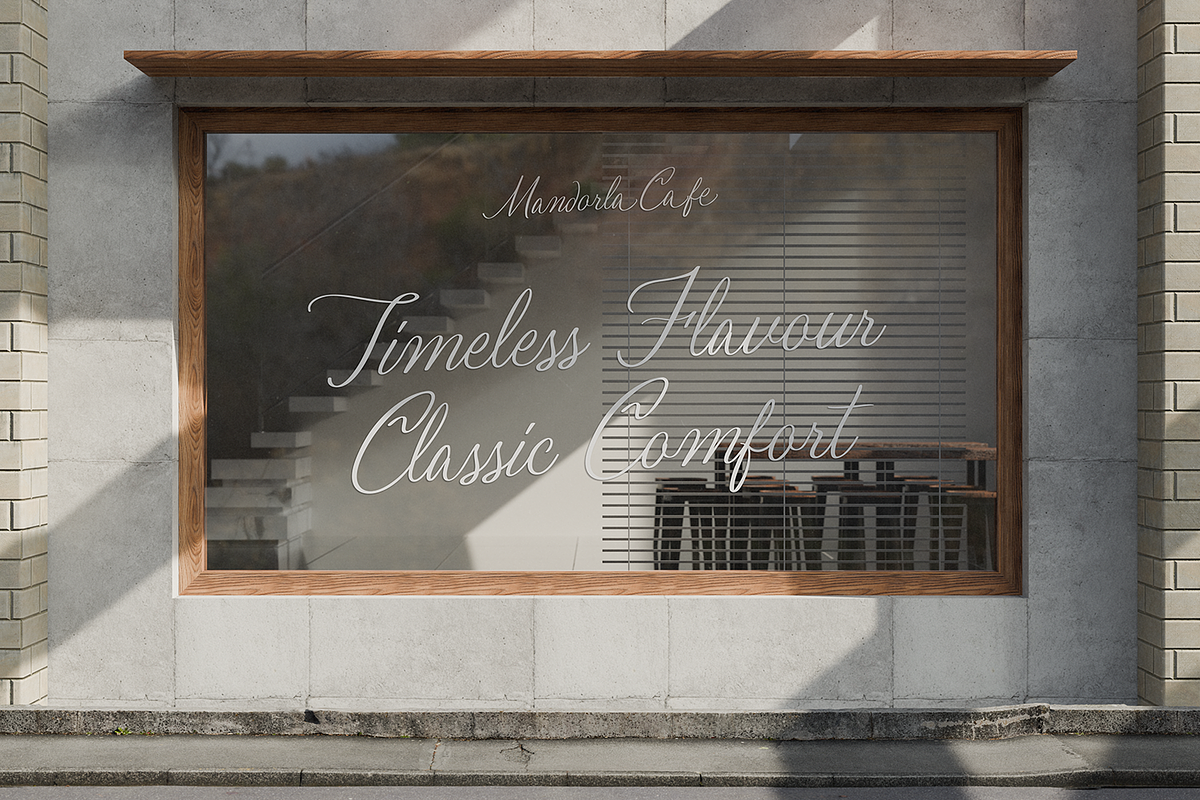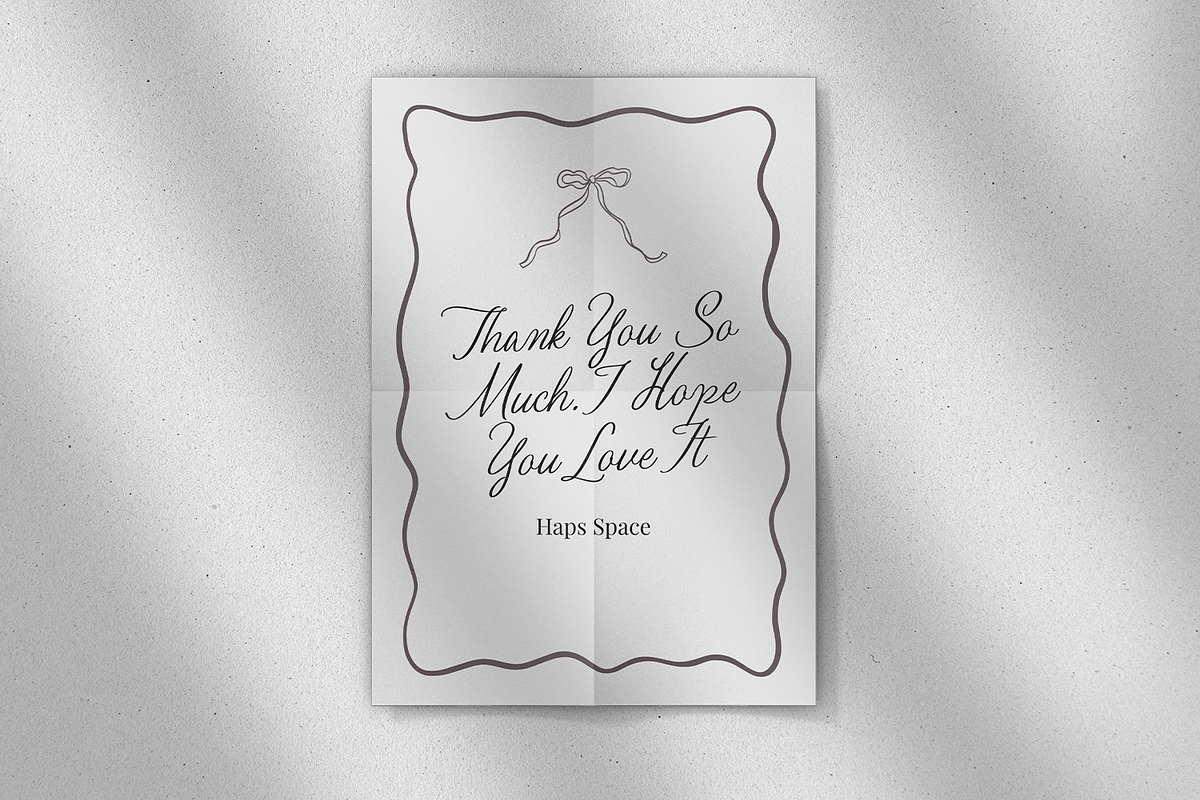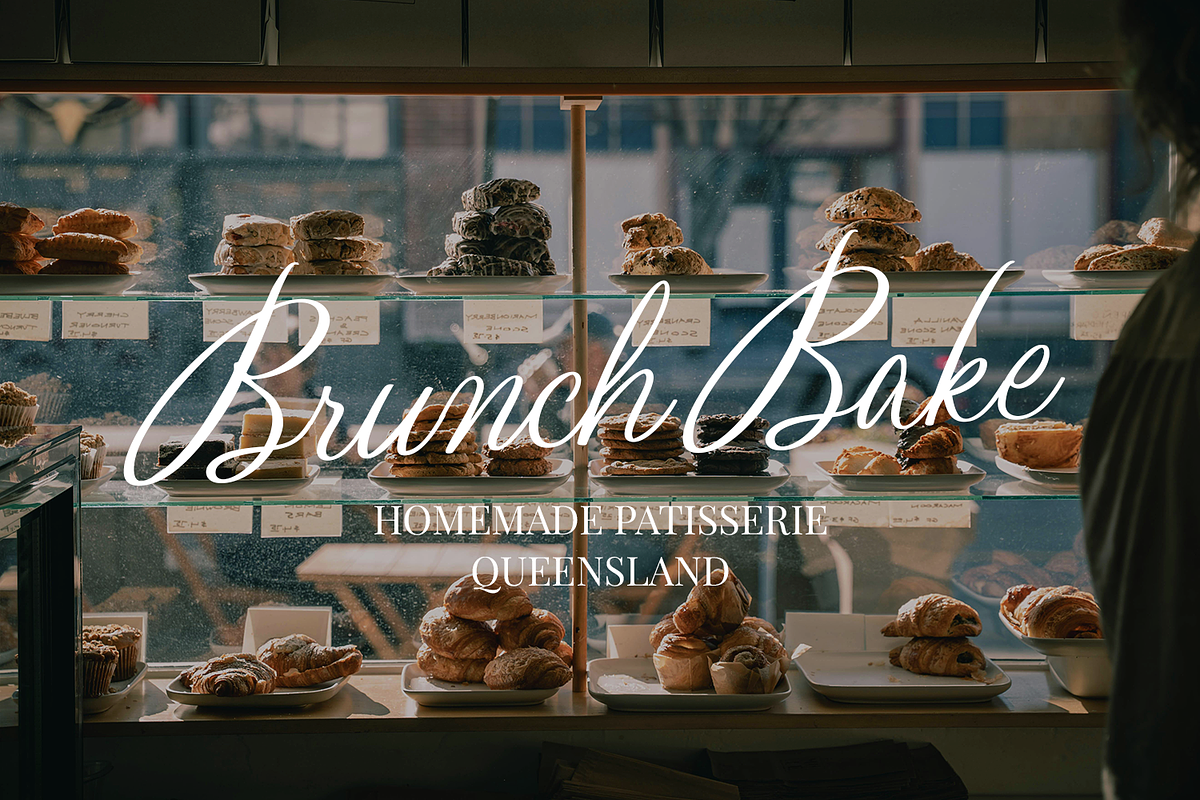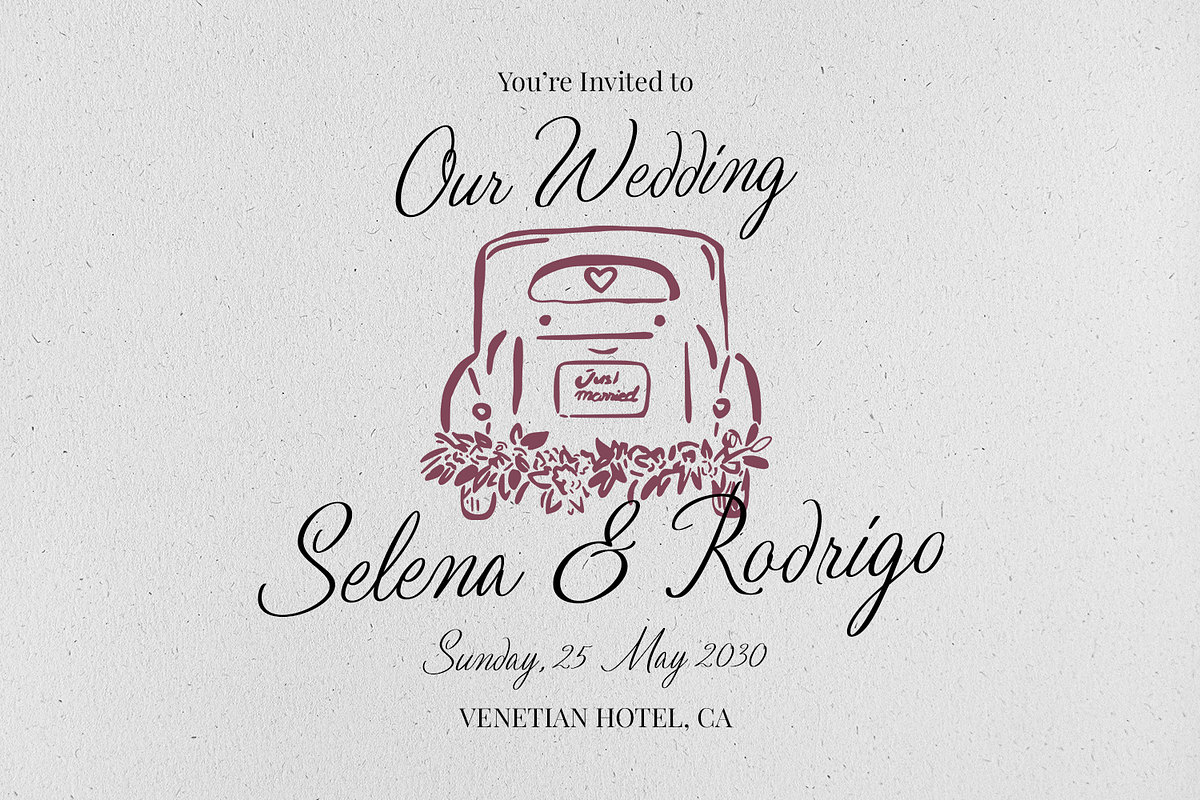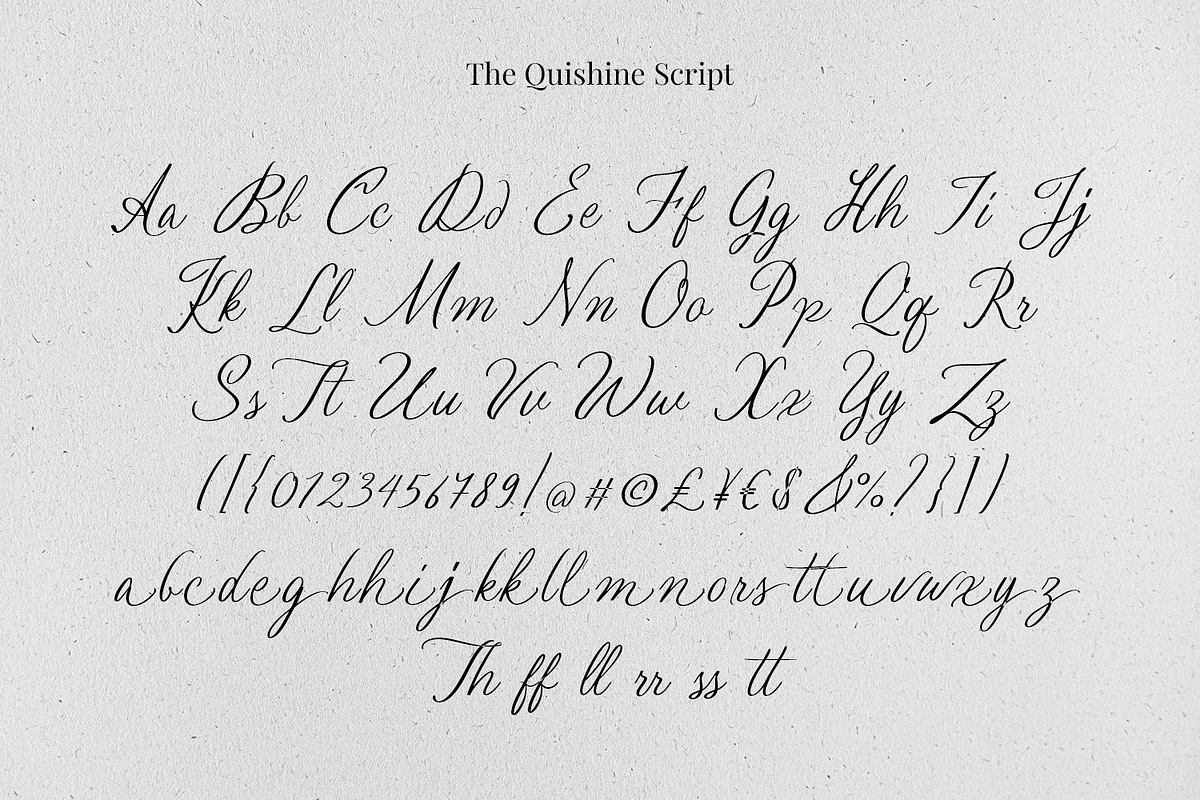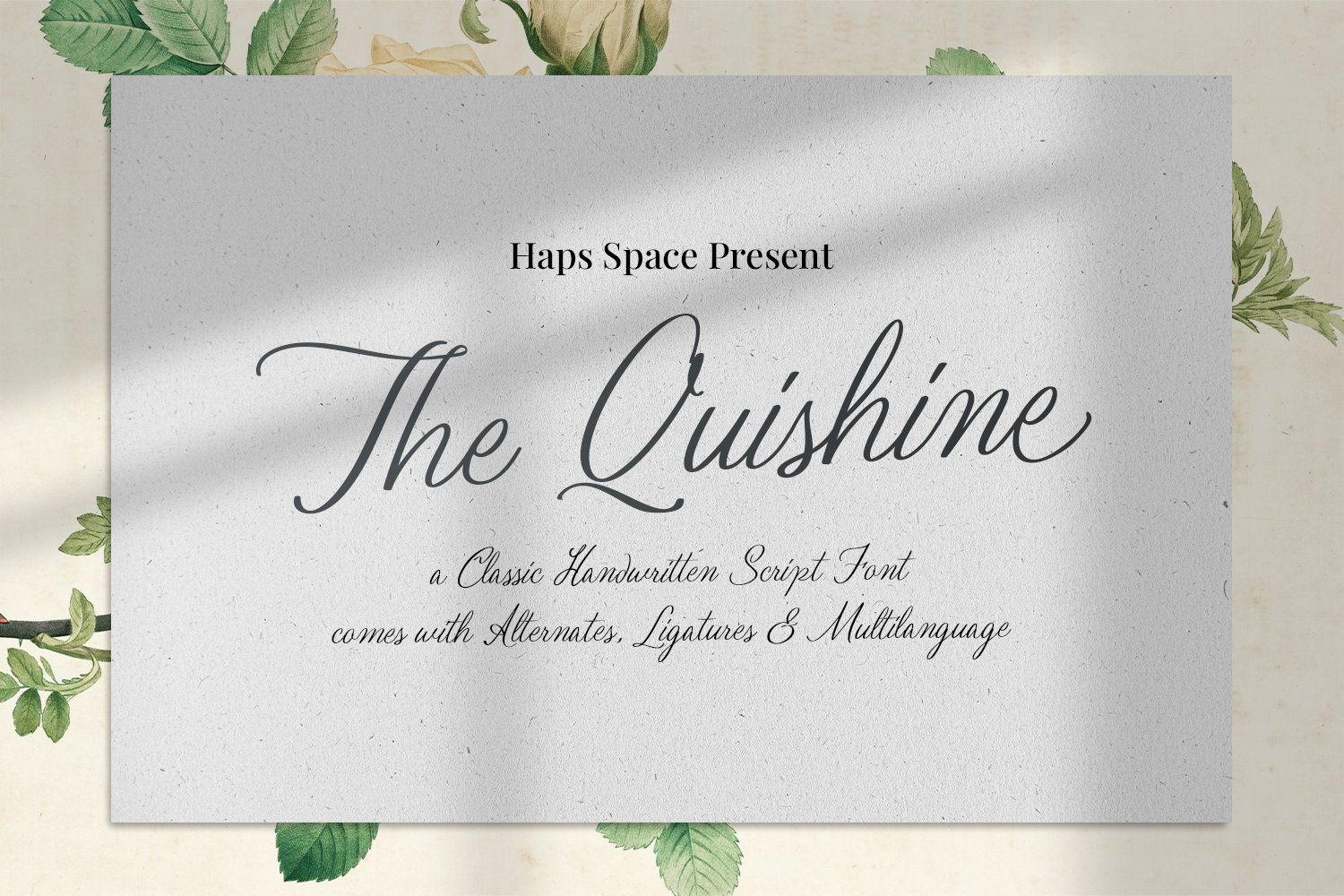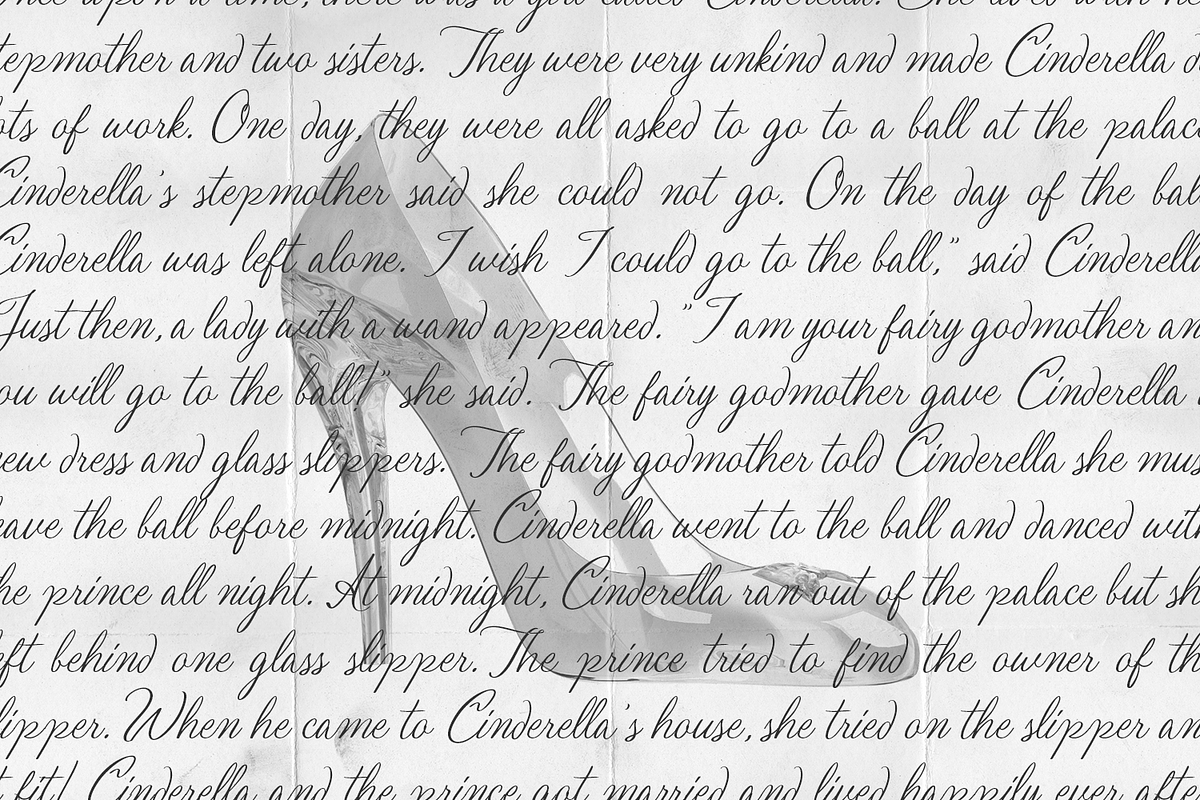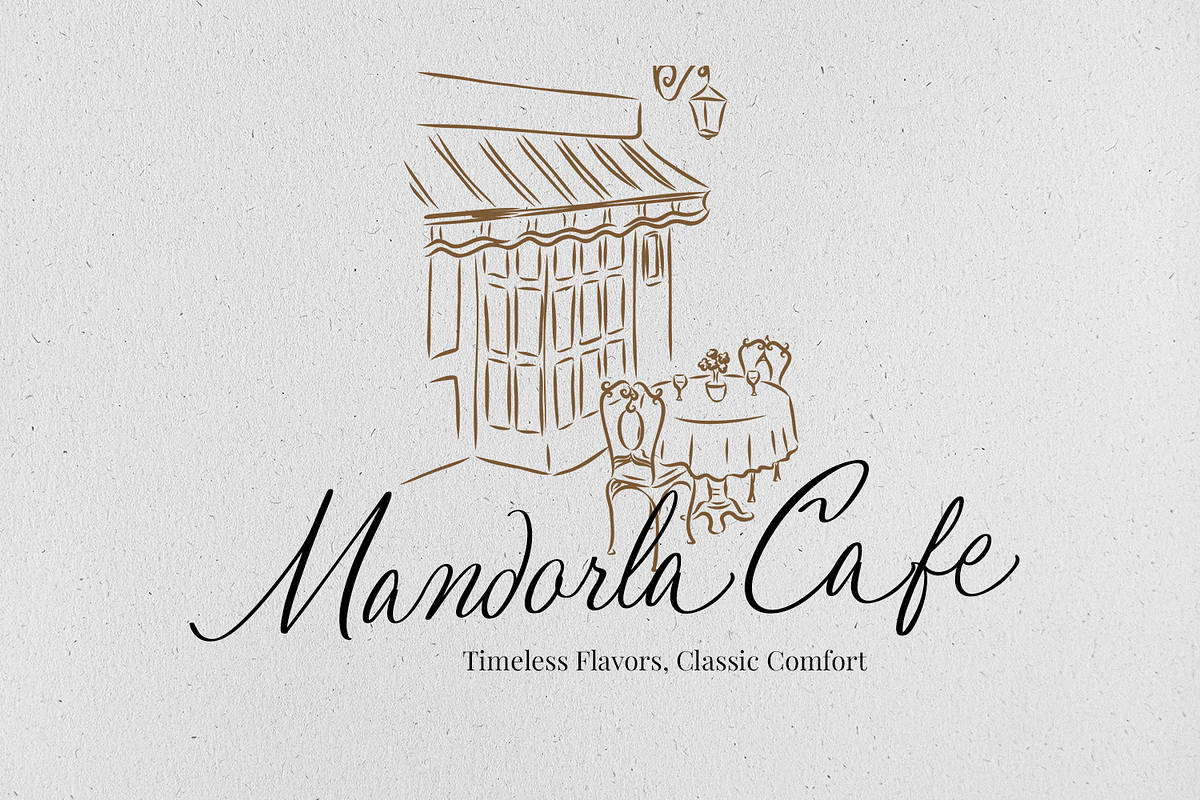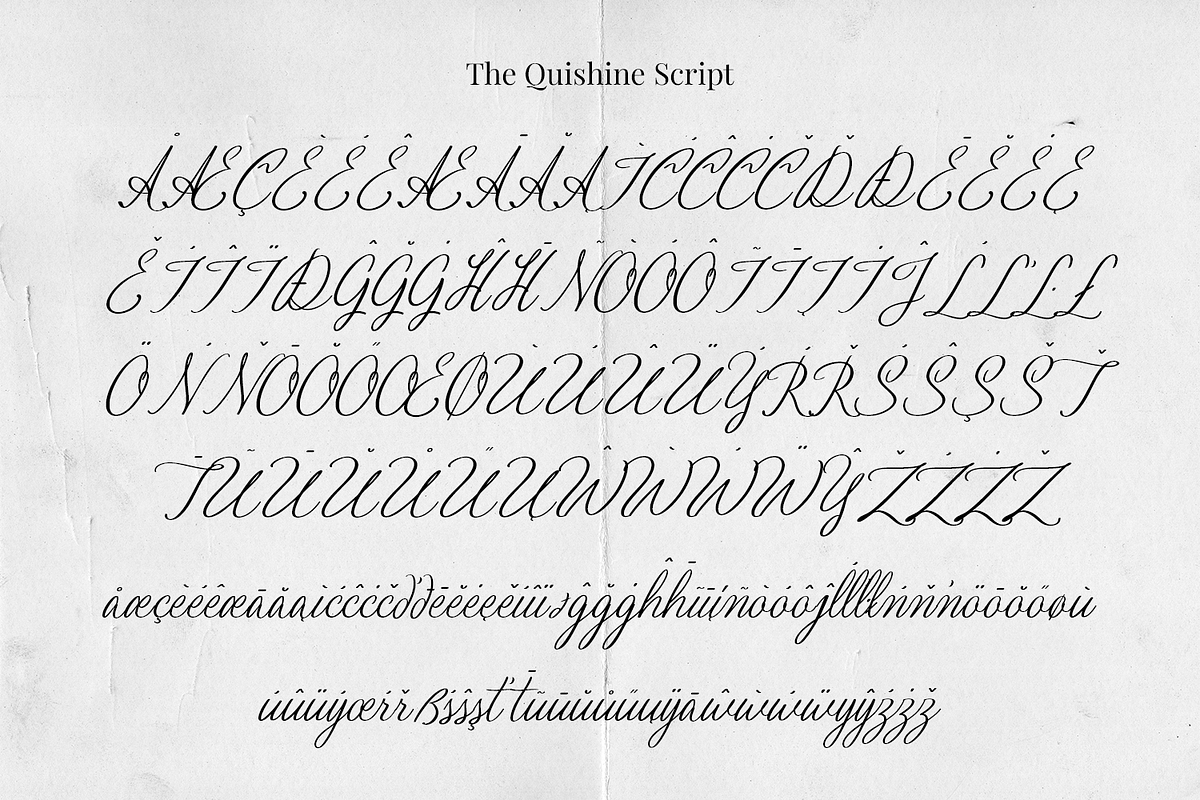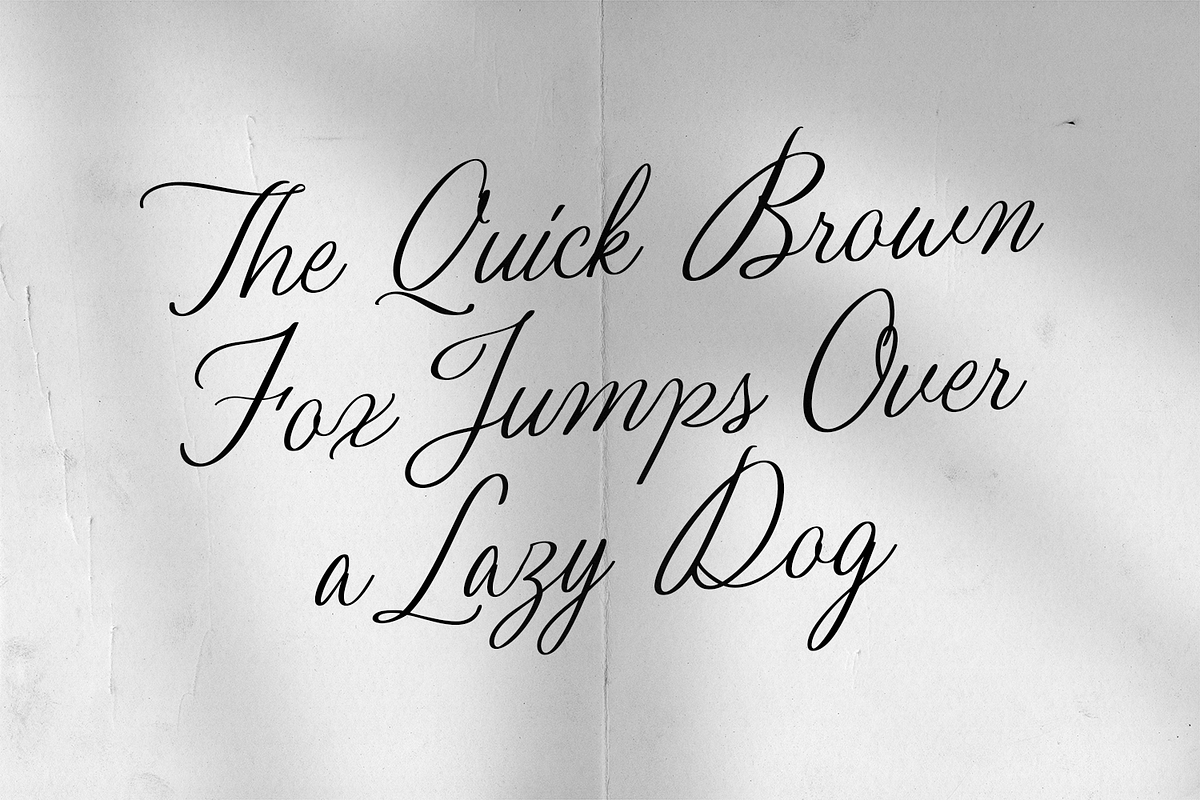
Quishine - Classic Handwritten Font
Quishine font is a classically inspired handwritten script font. It exhibits refined and flowing letterforms characteristic of traditional calligraphy, lending an air of timeless elegance and sophistication to any design. This font is equipped with practical OpenType features, including stylistic alternates and ligatures, which provide designers with the tools to achieve nuanced and natural-looking typography. Furthermore, The Quishine offers comprehensive multilingual support, expanding its usability for a global audience. It is particularly well-suited for applications requiring a touch of classic charm and personalized artistry, such as branding for luxury goods, wedding invitations, editorial layouts, elegant packaging, and projects aiming for a sophisticated and handcrafted feel.
- Unique Letterforms